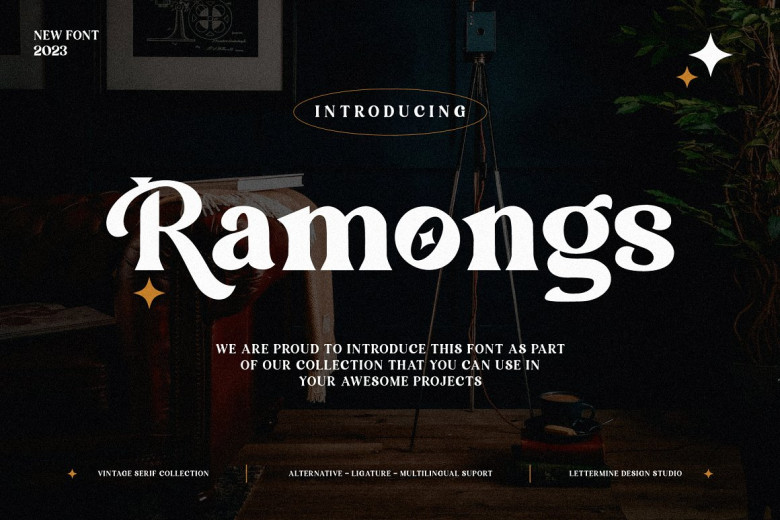
Ramongs Font
Ramongs is an elegant and adaptable serif typeface created to add sophistication and modernity to any project. Perfect for food and fashion industries as well as celebrations such as birthdays, weddings and engagements; Ramongs will effortlessly grab people’s attention as it pushes design concepts forward to new levels.
Ramongs Serif Font